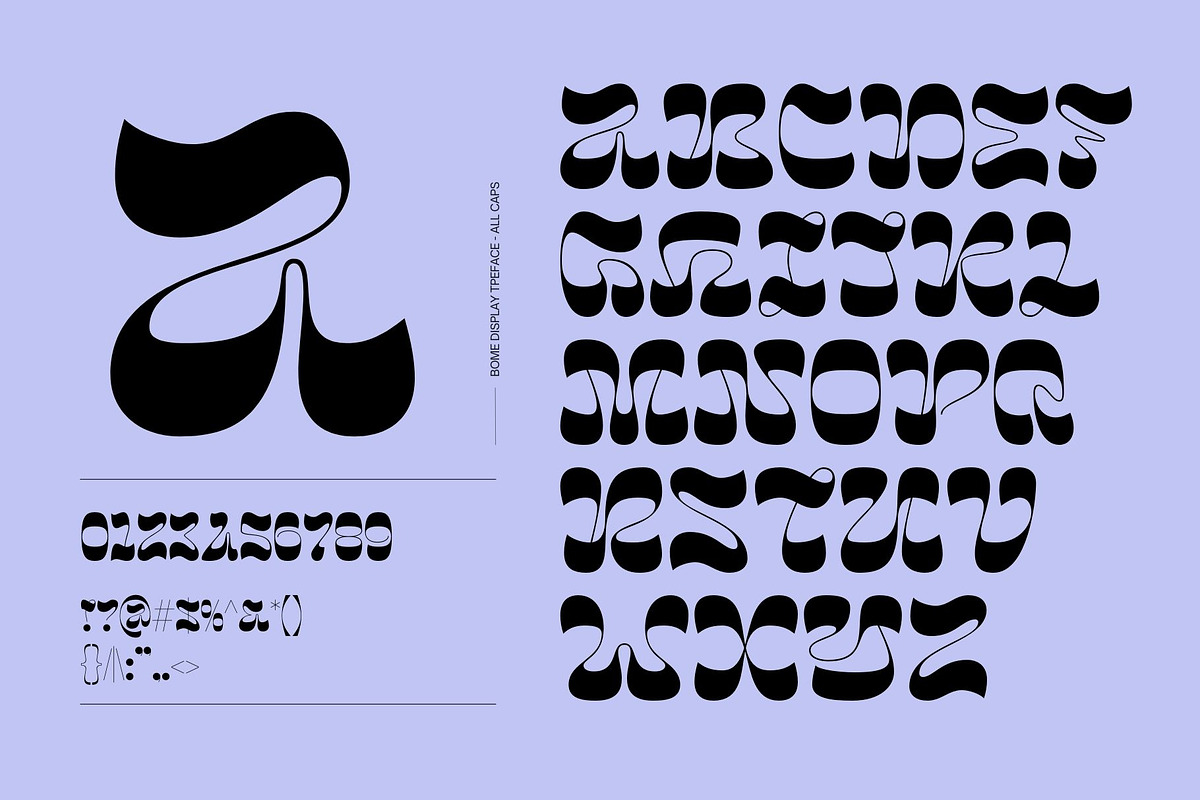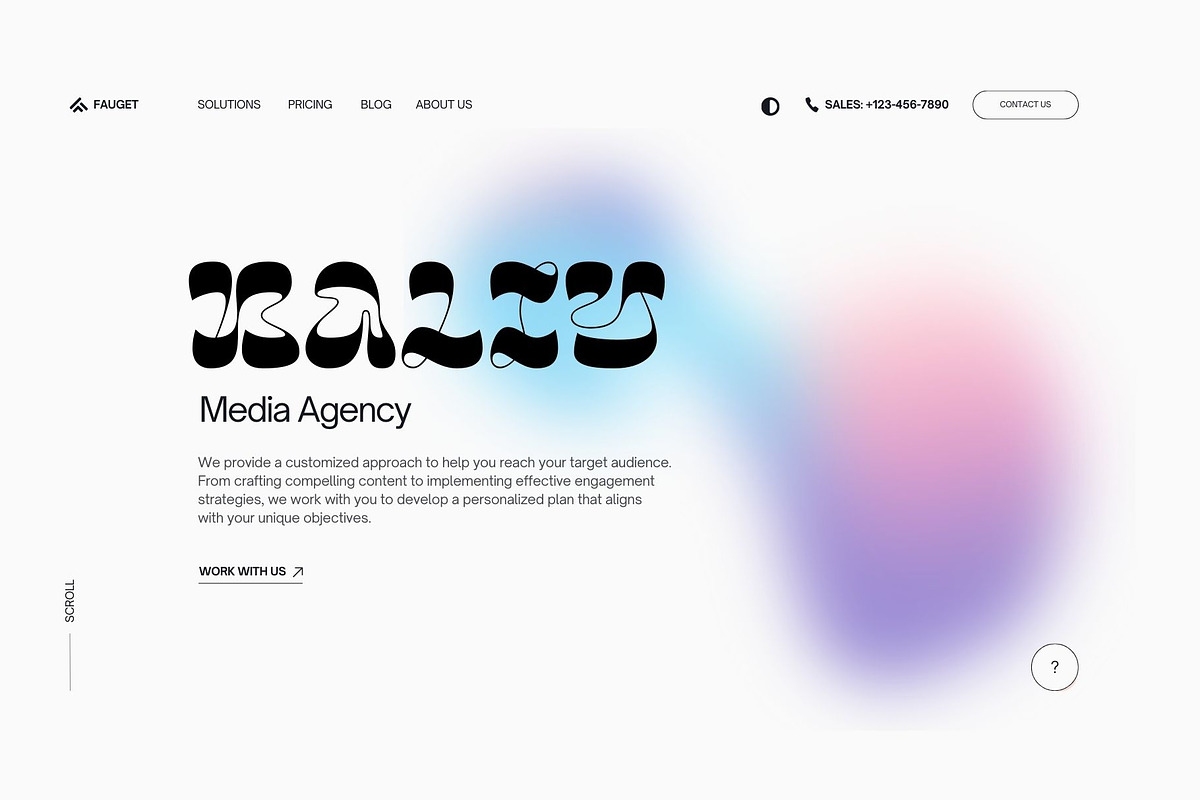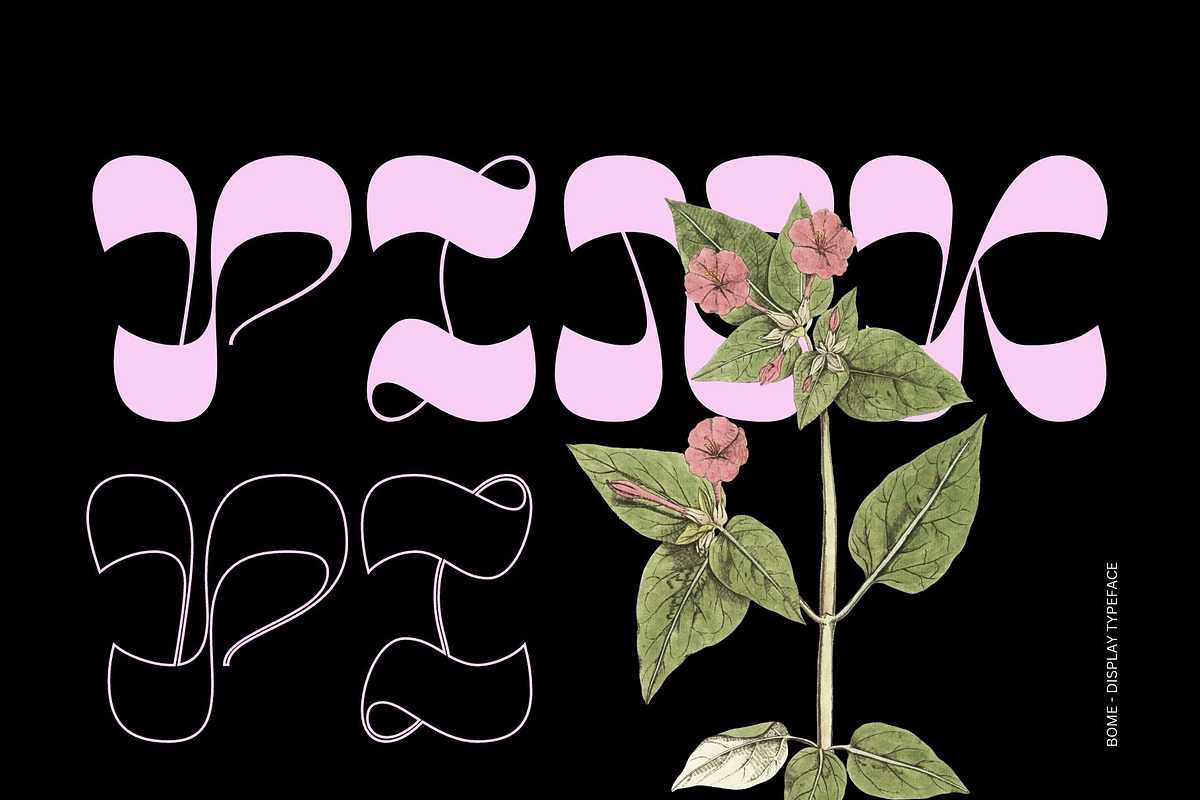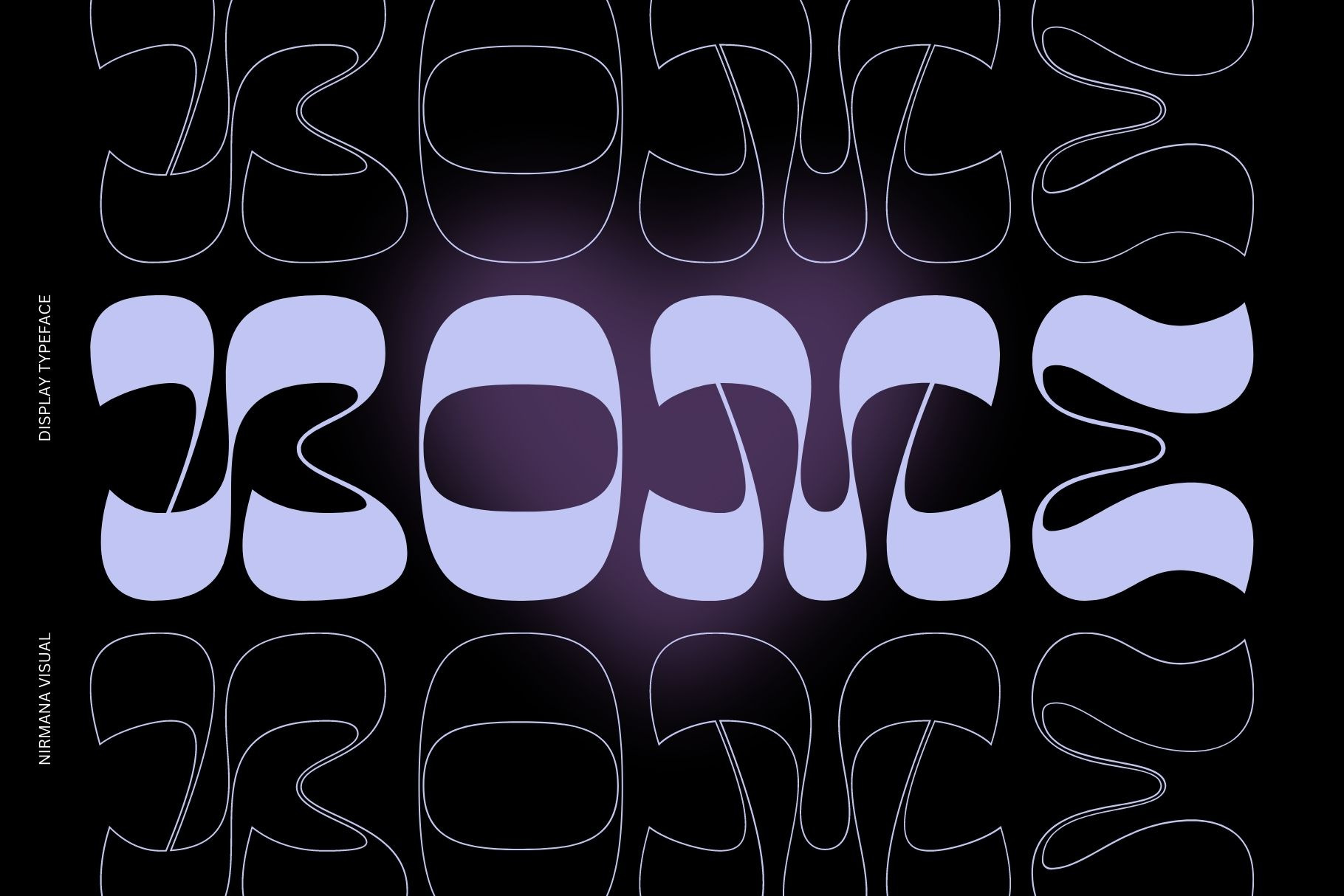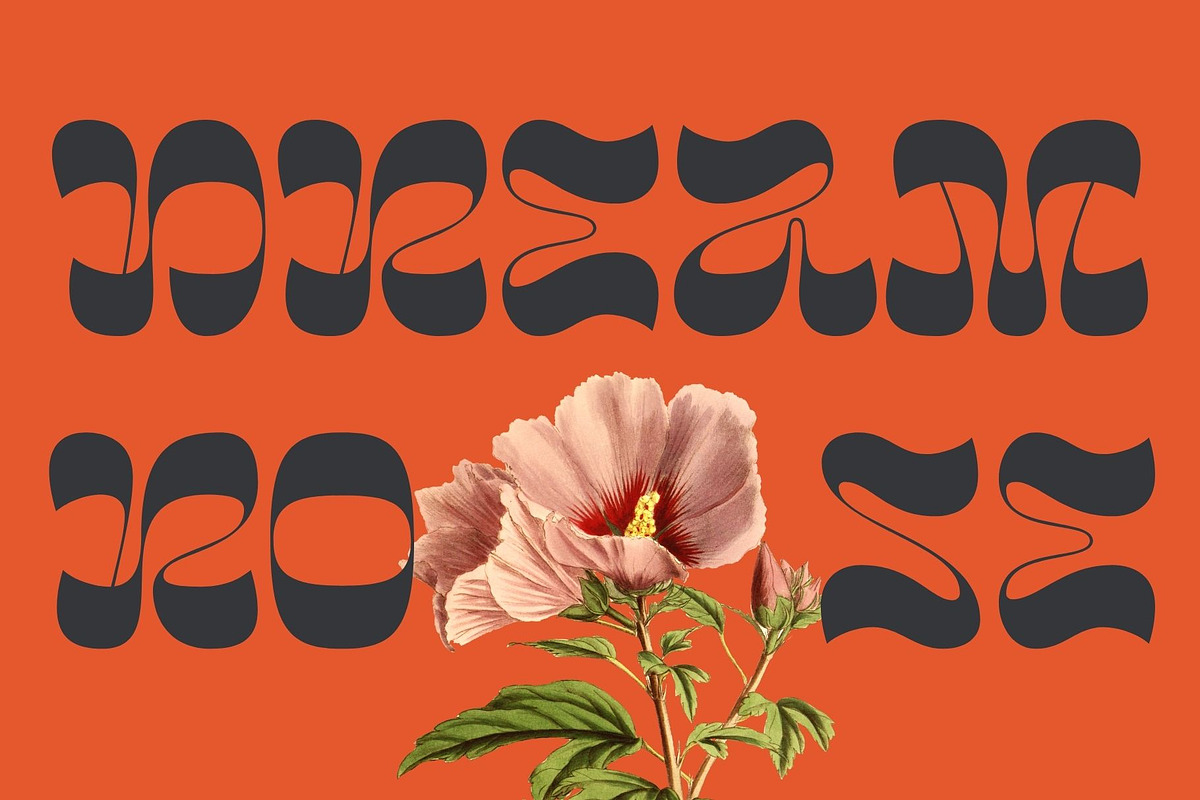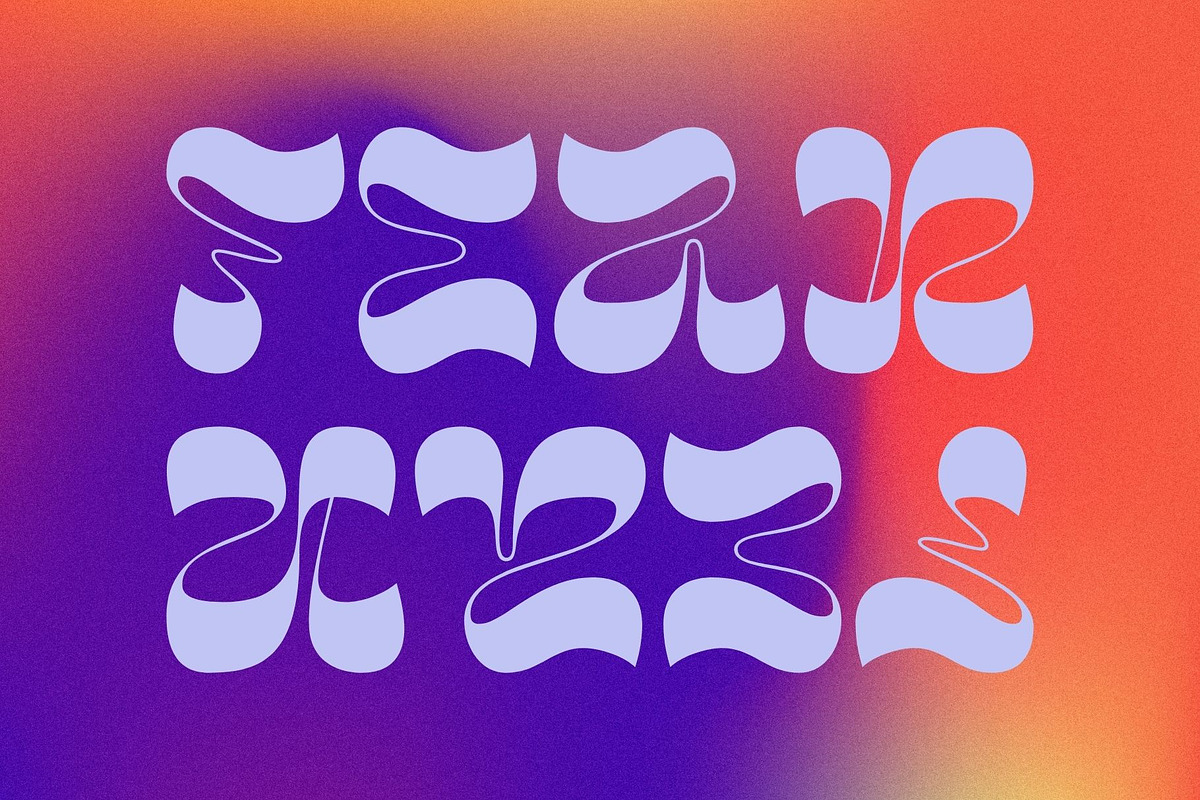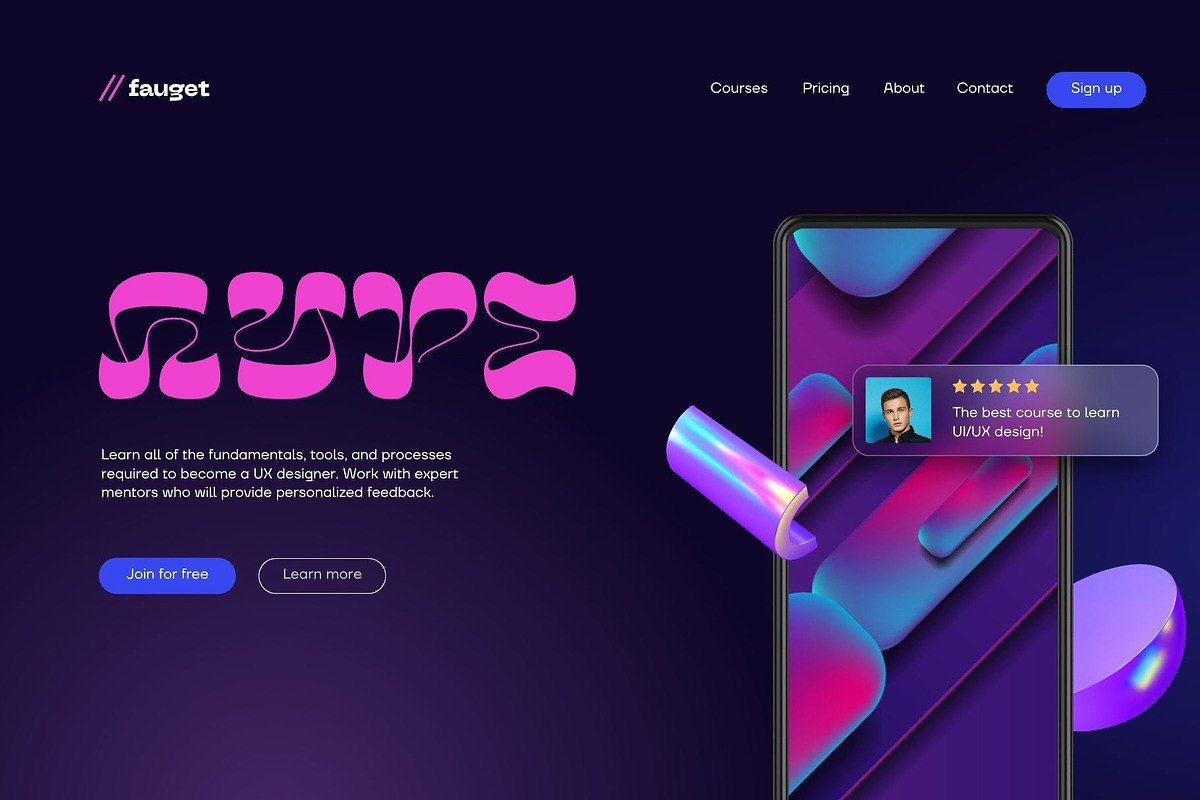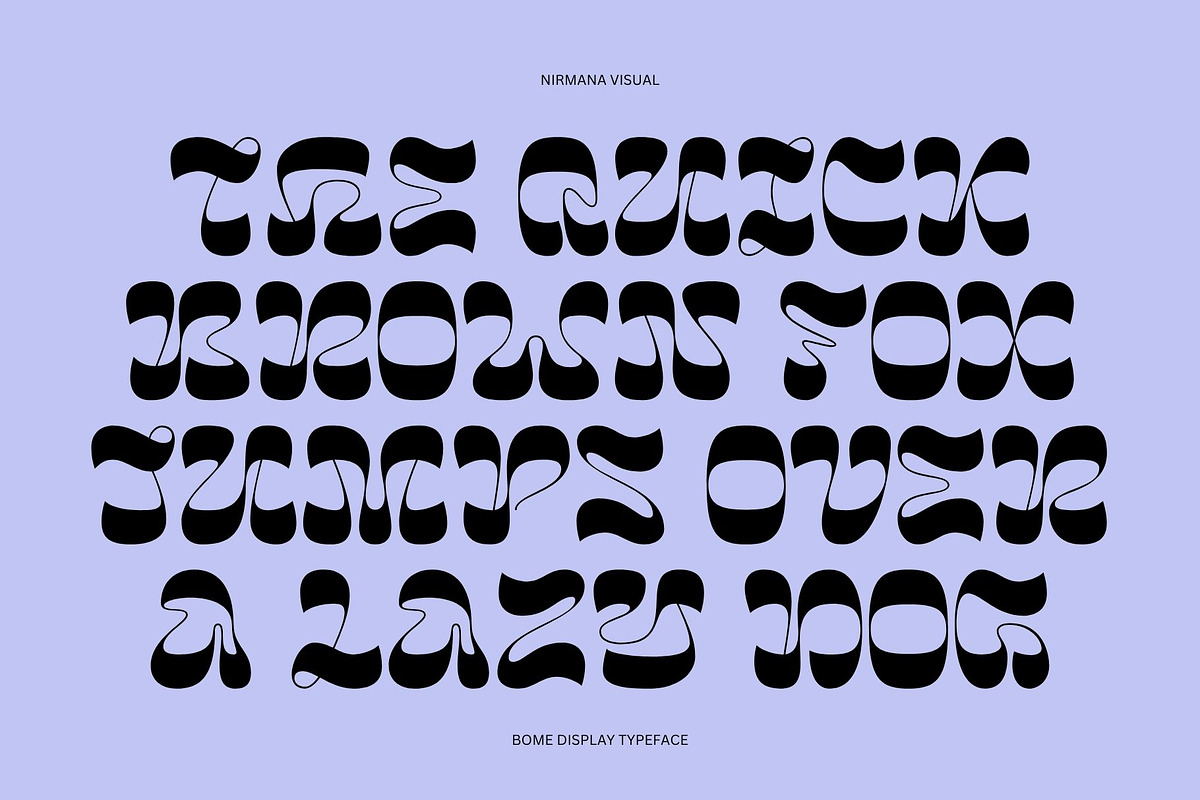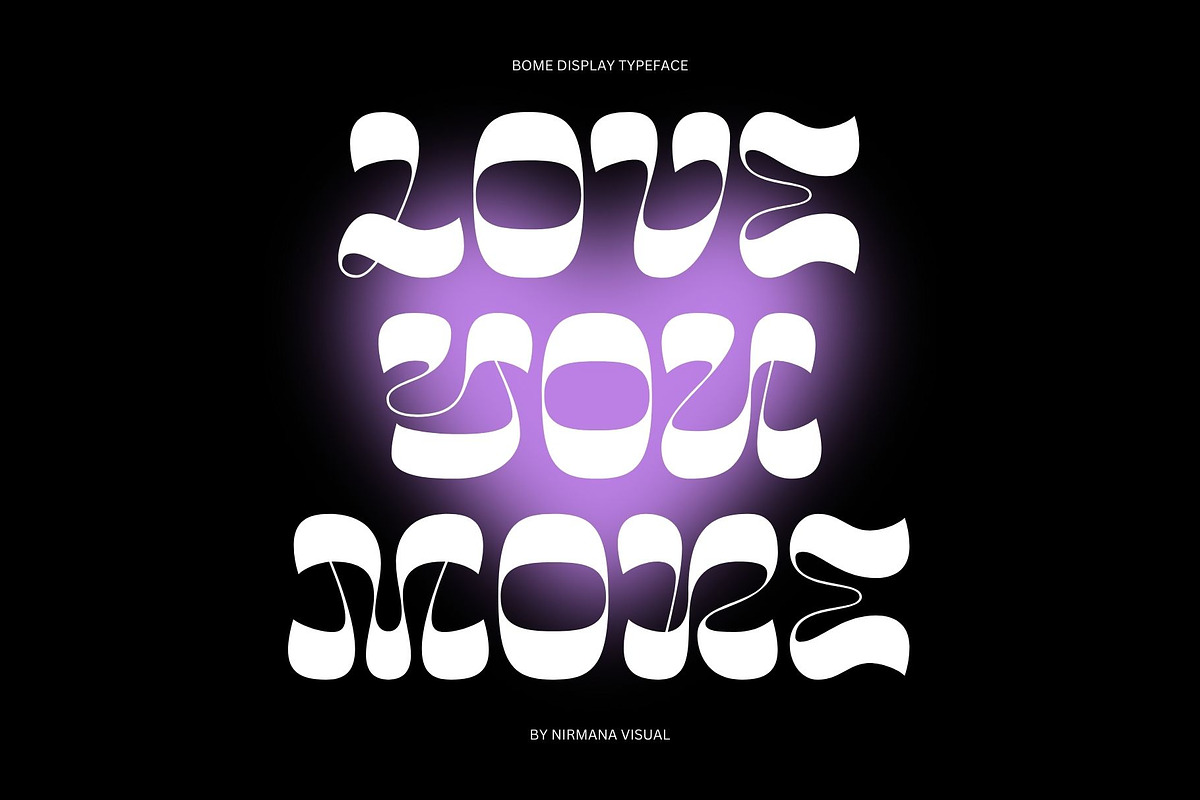
Bome - Retro Psychedelic Font
Bome - Vintage Psychedelic Display Typeface.
Bome offers beautiful typographic harmony for a diversity of design projects, including logos & branding, social media posts, advertisements & product designs.